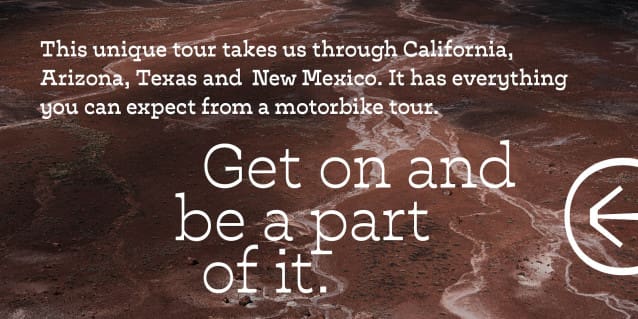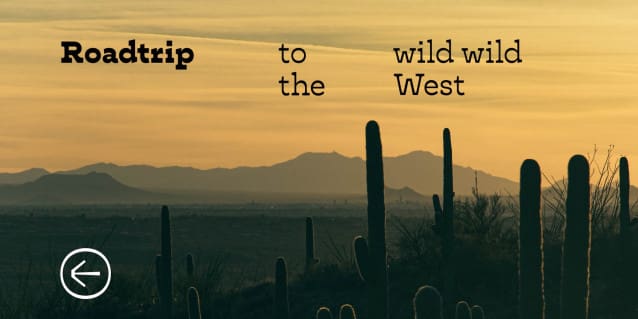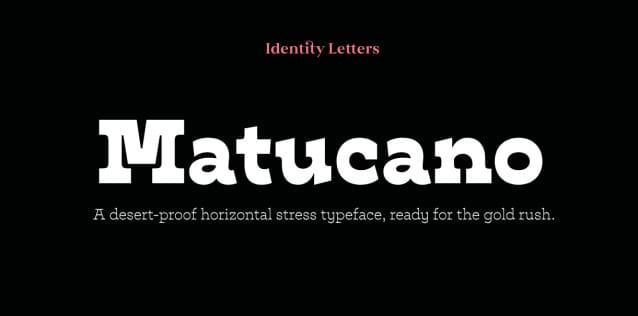
Matucano Font
Matucano Font is a handcrafted serif Font family. Matucano builds upon the heritage of horizonal-stress wood type, but wants to be taken with a grain of salt. It is more of a tongue-in-cheek reinterpretation than a faithful revival. Modern, sleek curves and contemporary proportions make sure that it’ll be a useful design tool far beyond the Old West era.